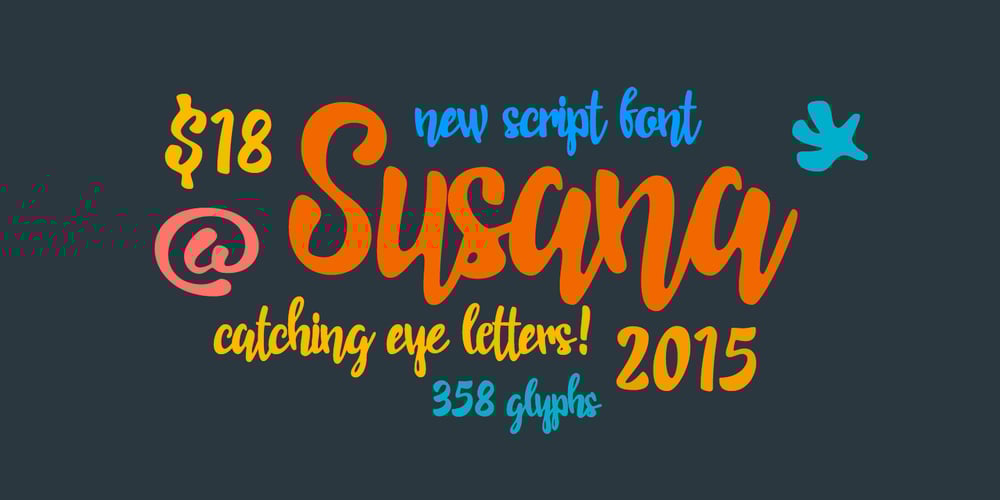
RNS Susana
RNS Susana font
RNS Susana Font Family was designed by Yorlmar Campos and published by RNS Fonts. RNS Susana contains 1 styles and family package options. RNS Susana is a hand lettered brush font, with a great groovy touch. The font has a set of alternates used on contextual substitution to give it a more organic look. The design was set with a marker brush pen, making emphasis on showing the imperfections to reach its expressive personality.